Saturday Night Live
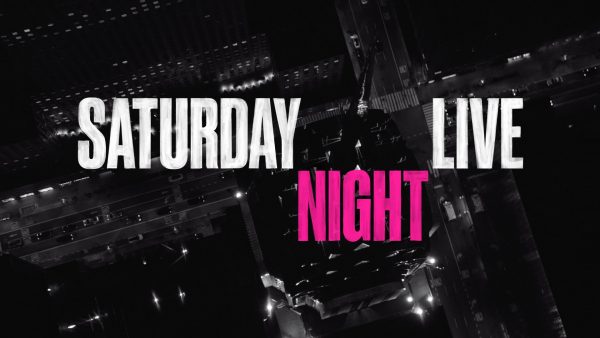
Additional Credits
ILLUSTRATOR:
Daniel Zender
ANIMATOR:
Dave Eber
PRODUCER:
Zoe Chrissos
EDITOR:
Sarra Idris
DIRECTOR:
Emily Oberman, Mary Ellen Mathews, Paul Briganti
AGENCY:
Pentagram / New York
PRINCIPAL TYPE:
The SNL logo is a hand painted custom cut of Druk for SNL by Commercial Type; The cast members' names are all handwritten in custom script.
CONCEPT:
The SNL cast comes home to 30 Rock in a new opening title sequence for the show?s return in fall 2020.